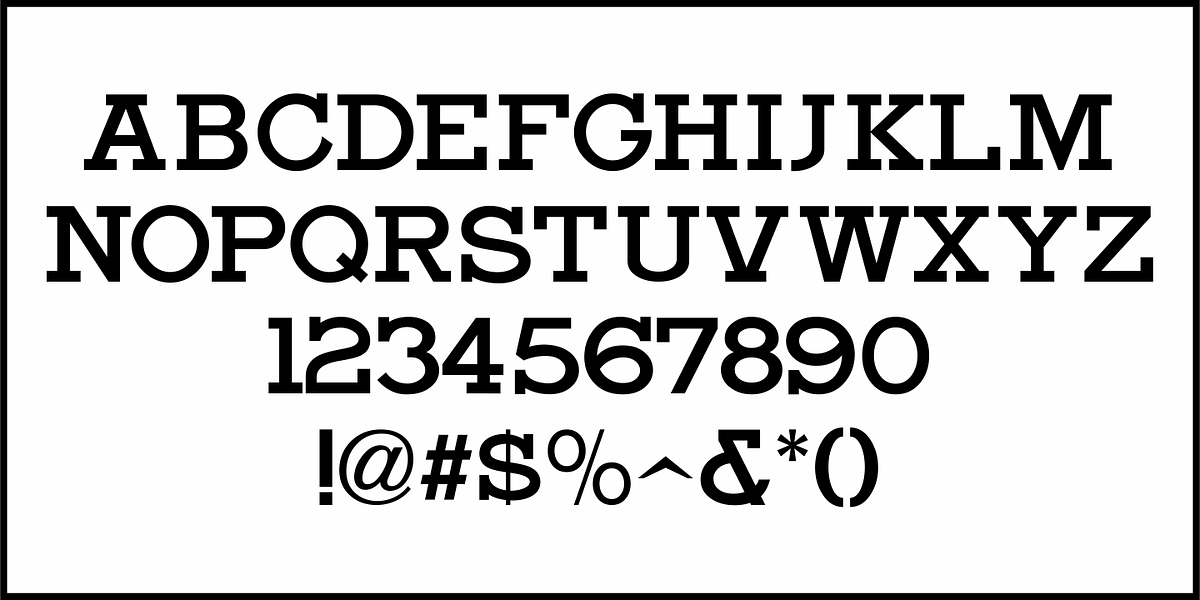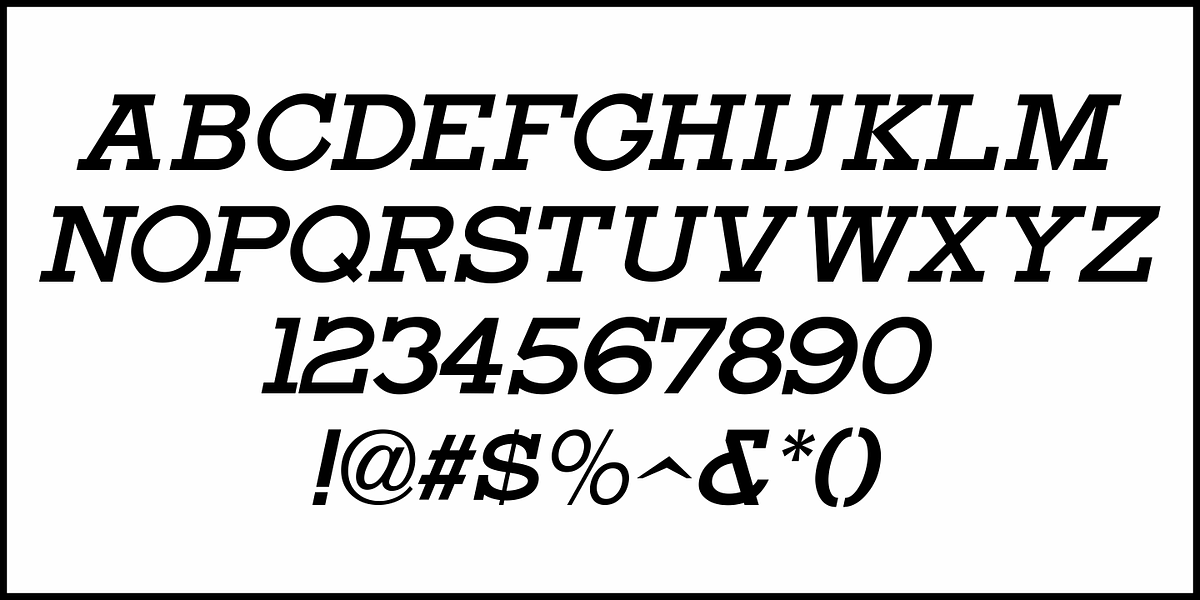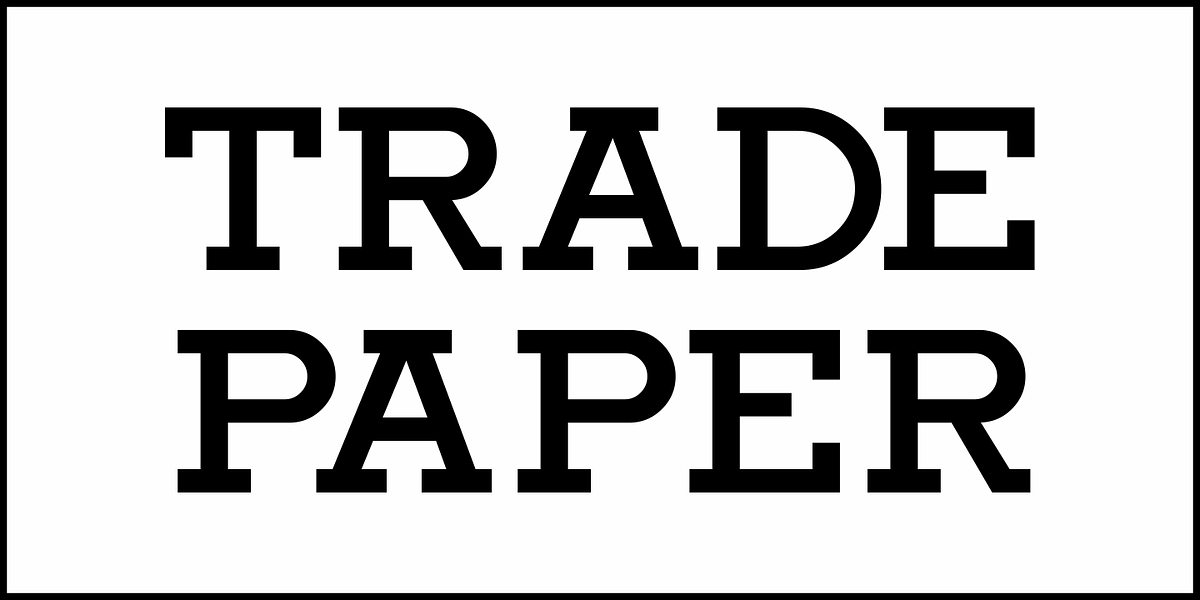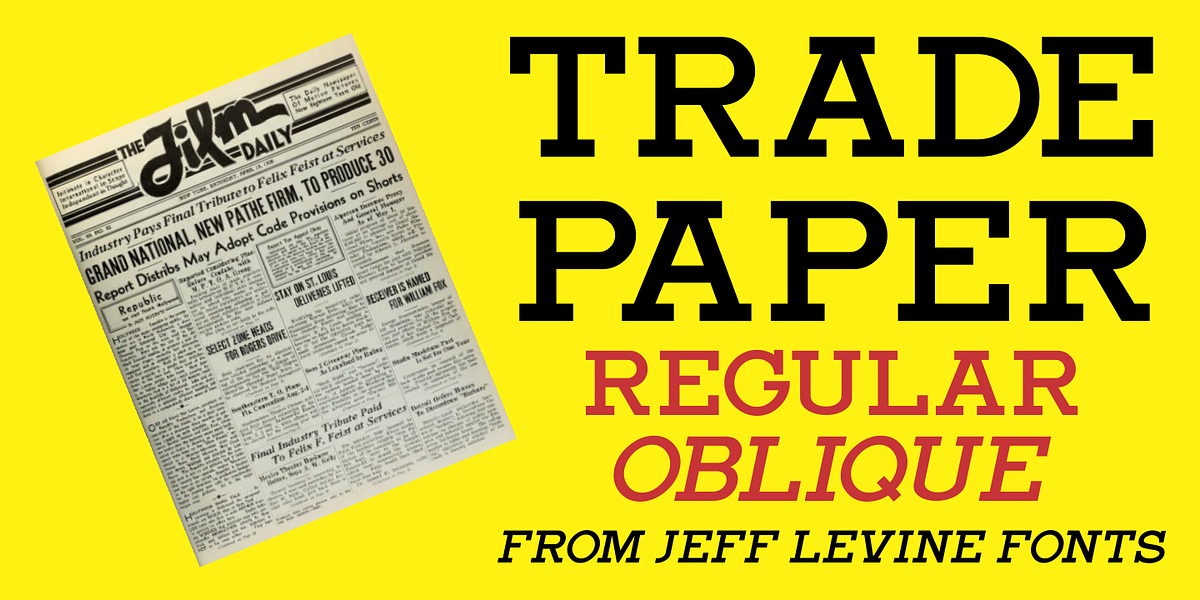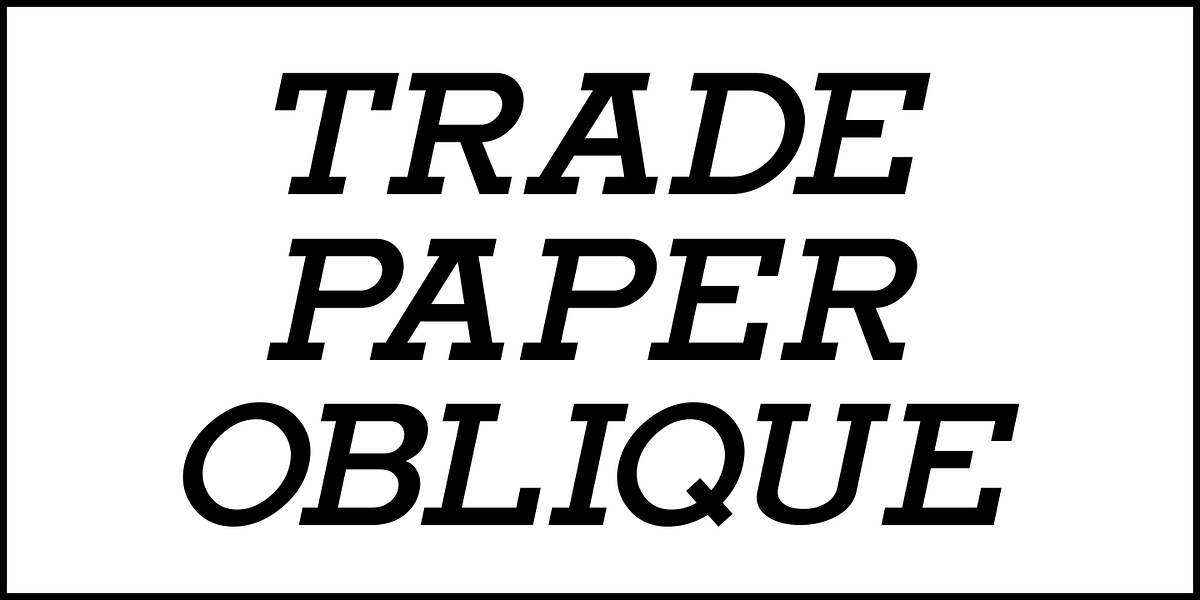
Trade Paper JNL
In the March 16, 1936 edition of “The Film Daily” (a trade publication for the film industry) the magazine ran an ad for its Year Book.
The ad was set in a slab serif typeface similar to popular designs such as Karnak, Stymie, Beton and the like.
Redrawn digitally as Trade Paper JNL, it is available in both regular and oblique versions.